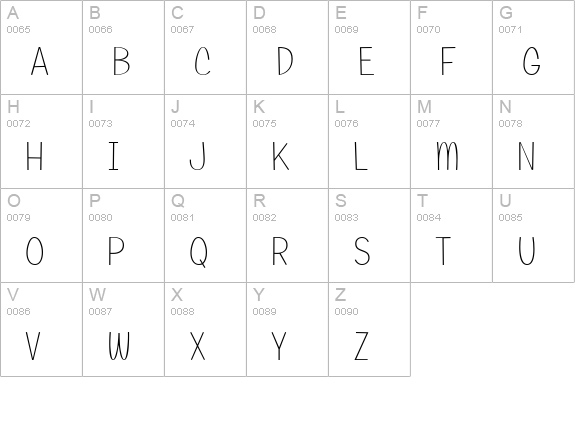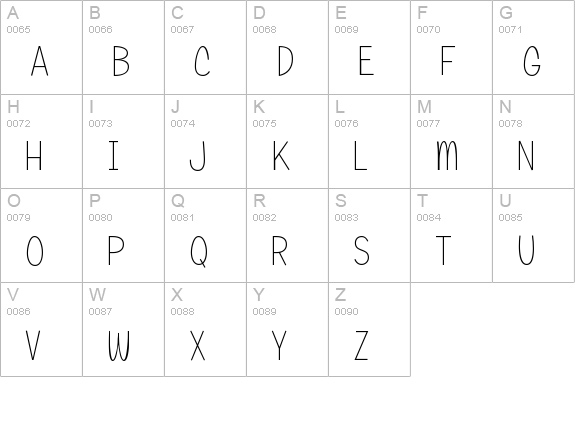
Candy Square BTN Lt Font Details
Candy Square BTN Lt font is a charming and playful typeface that adds a touch of whimsy to any design project. With its square shapes and rounded edges, this font exudes a sense of fun and creativity. Perfect for creating eye-catching headings, logos, or invitations, Candy Square BTN Lt font is sure to make your designs stand out. The best part? This delightful font is available for free download at FontsMarket.com. Whether you're working on a personal project or a client's design, you can easily access and use Candy Square BTN Lt font without any cost. Don't miss out on this fantastic opportunity to add a sweet and playful touch to your designs with Candy Square BTN Lt font - get your free download today!